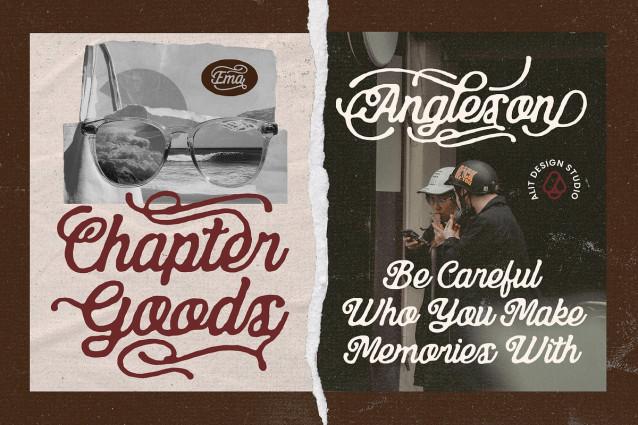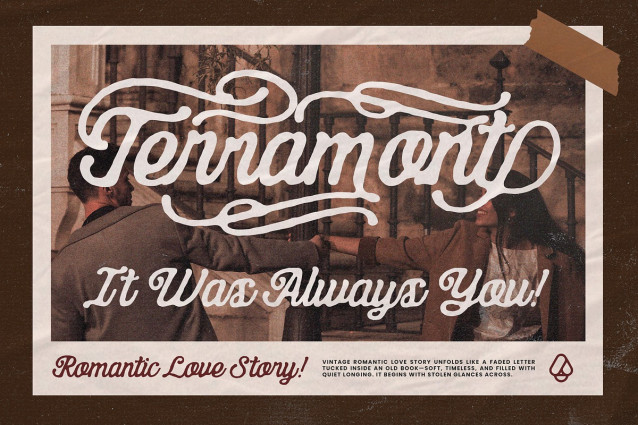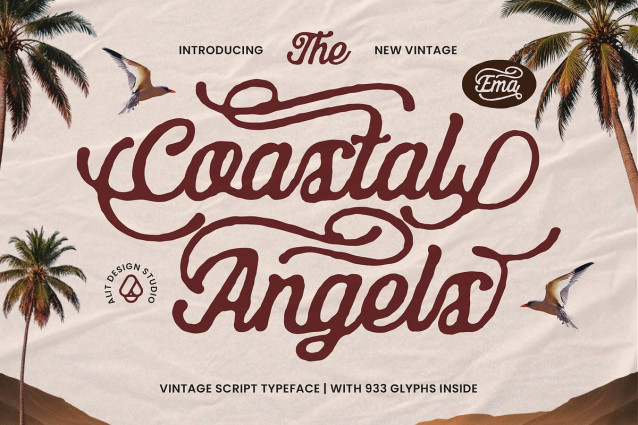
Coastal Angels Script Typeface a masterfully crafted vintage script typeface designed to bring romance and quiet strength to your creative projects.Inspired by classic mid-century aesthetics and organic coastal forms, Coastal Angels is more than just a font—it’s a comprehensive design toolkit. With an expansive library of 933 glyphs, this typeface offers unparalleled flexibility. Whether you are designing high-end wedding invitations, vintage-inspired fashion branding, or artisanal coffee shop identities, Coastal Angels provides the perfect balance of decorative flair and professional legibility.
The Soul of Versatility What sets Coastal Angels apart is its incredible depth of Stylistic Alternates. The typeface includes 10 distinct Stylistic Sets, allowing you to transform a simple word into a custom piece of lettering. From elegant swashes and flowing underscores to unique bird-inspired decorative initials, you can tailor every character to fit your specific vision.